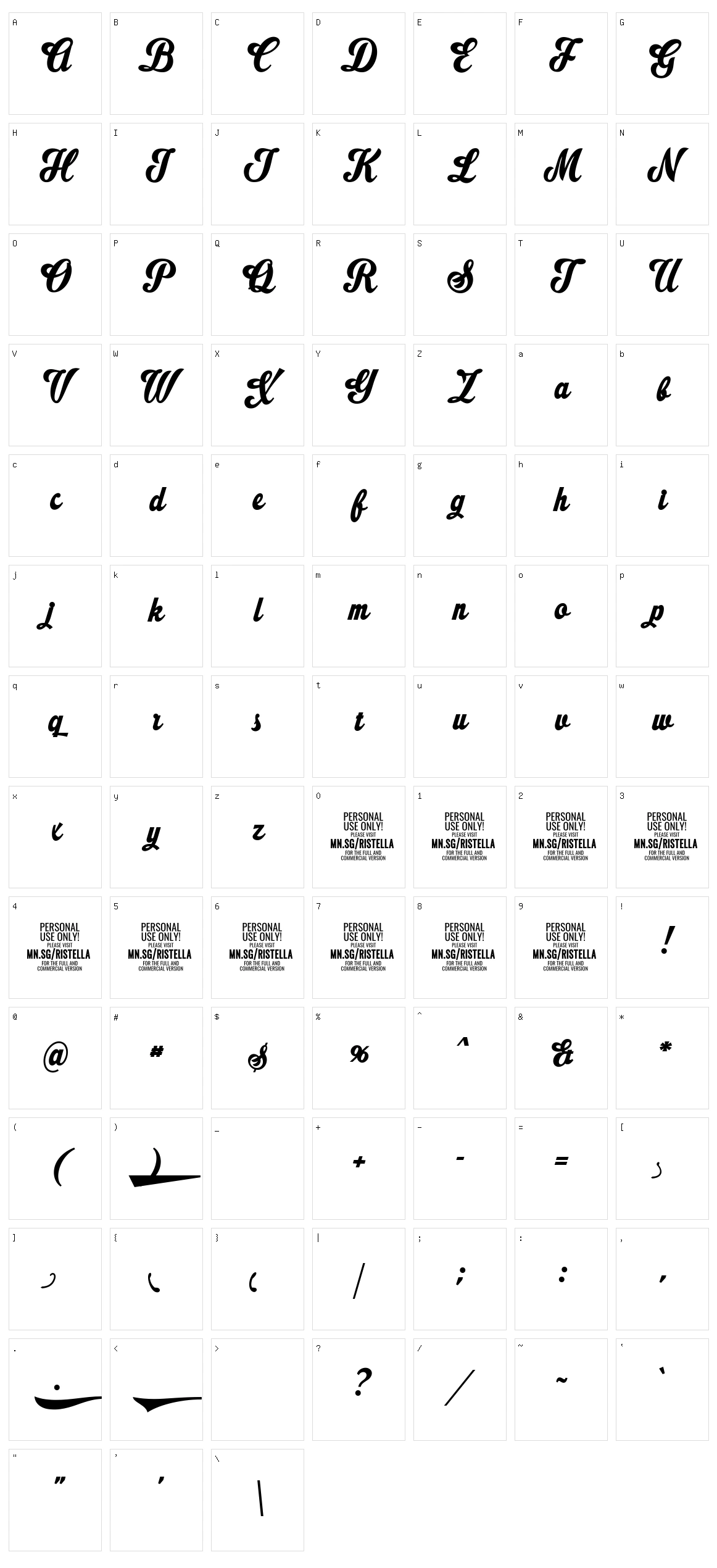
Ristella - a logotype script font.
This high-quality typeface is created by Måns Grebäck.
Its style is bold and has large, attention-grabbing uppercase letters.
Ristella contains alternate and stylistic alternates, as well as multiple ligatures.
With its hundreds of glyphs it also has support for a wide range of languages.
How do you make a swash?
Combine an ending and a tail to make a swash.
Endings are found in the following symbols: [ ] { }
Tails are found in the following symbols: < > § _ ¤
Example: Ristella}>
With ligatures activated, write multiple tail symbols to make a longer swash.
Example: Tailextender]¤¤¤